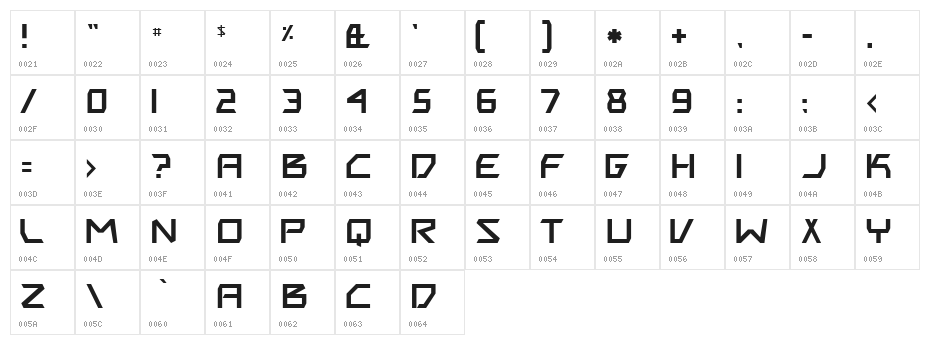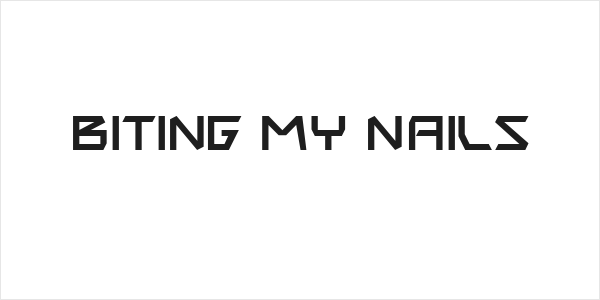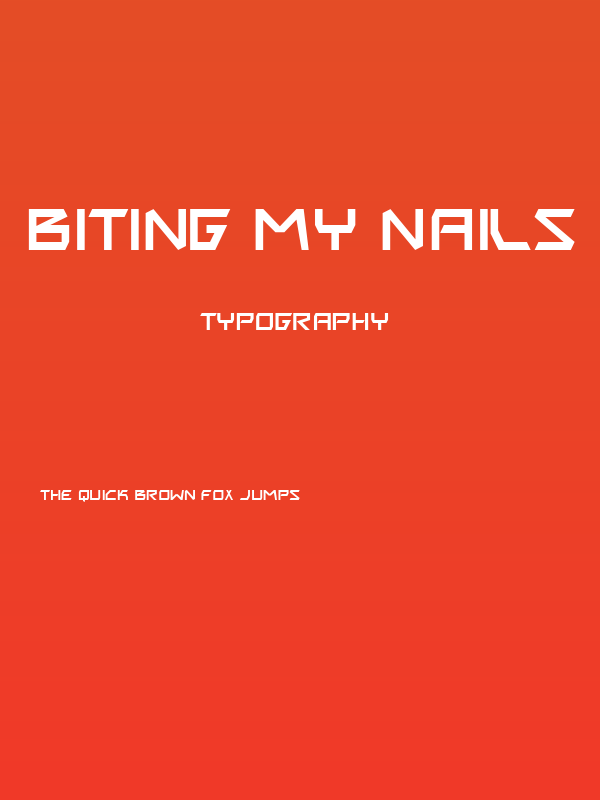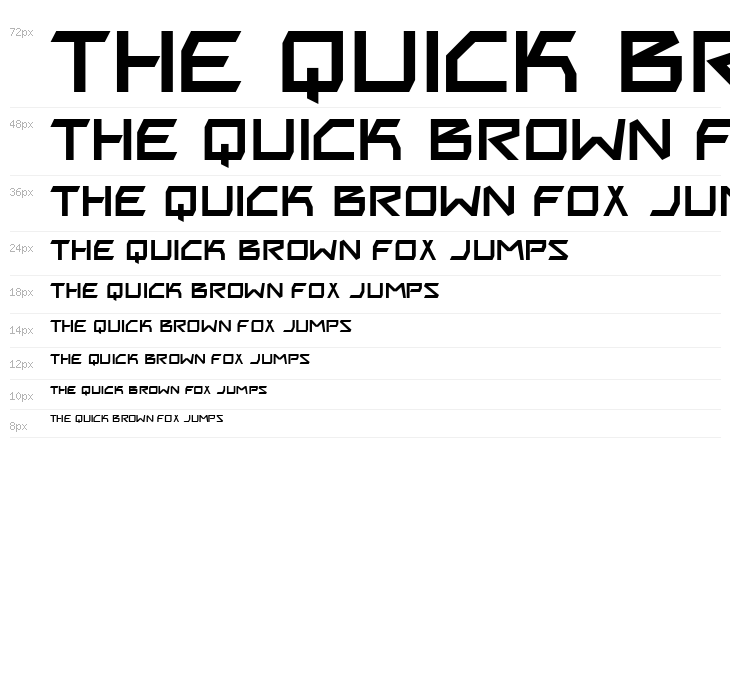
Biting My Nails Font
Biting My Nails Description
This font features a bold, geometric design with sharp angles and a futuristic aesthetic. The characters are constructed with a consistent thickness, giving them a uniform appearance. The angular cuts and straight lines create a sense of movement and dynamism, making it suitable for modern and tech-oriented designs. The uppercase and lowercase letters maintain a cohesive style, while the numerals and special characters complement the overall look. This font's distinct style makes it stand out, ideal for projects that require a strong visual impact.